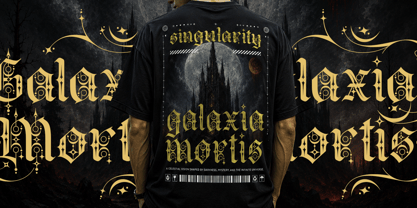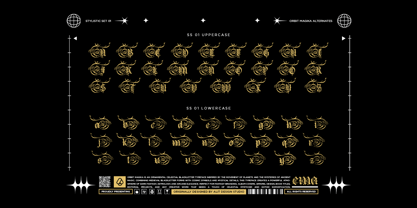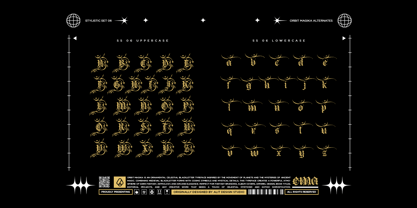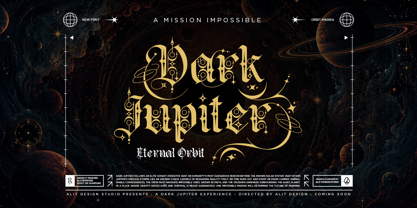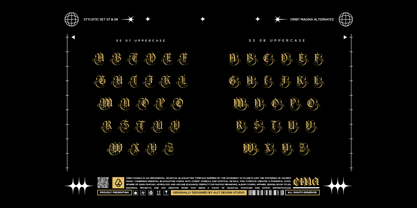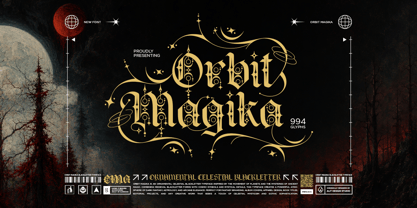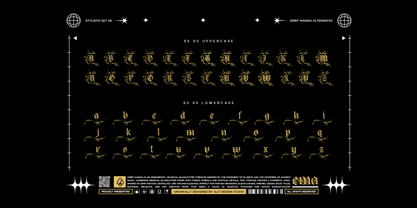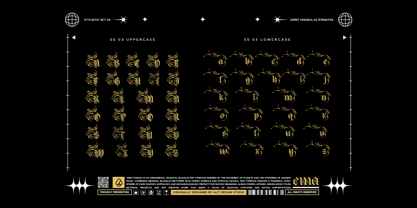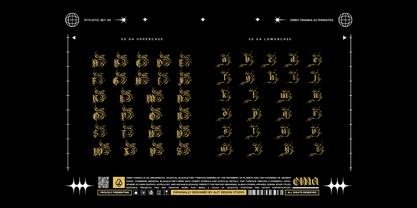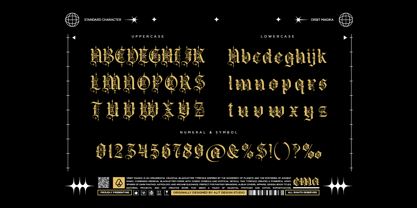
Orbit Magika
Orbit Magika: An Ornamental Celestial Blackletter
Step into a realm of arcane elegance with Orbit Magika, a breathtaking ornamental blackletter typeface inspired by the cosmic dance of the planets and the hidden mysteries of ancient magic. By seamlessly blending traditional medieval blackletter structures with delicate celestial symbols and mystical details, this typeface creates a powerful atmosphere of dark fantasy and gothic sophistication.
Whether you are designing for the earthly realm or the vast cosmos, Orbit Magika is crafted to elevate your creative projects with a touch of timeless ambition and enduring beauty.
🌌 Perfect For:
• Fantasy & Sci-Fi Branding: Create striking logos and wordmarks for games, movies, and esoteric brands.
• Apparel Design: Ideal for streetwear, band merchandise, and edgy typography-focused clothing.
• Publishing & Editorial: Craft captivating book covers, chapter headers, and magazine layouts.
• Music Industry: Perfect for dark, ambient, or heavy metal album art and promotional posters.
✨ Key Features:
• Massive Character Set: A meticulously crafted library of 995 glyphs for boundless creative freedom.
• Comprehensive Basics: Includes standard uppercase and lowercase letters, alongside numerals and a full set of symbols.
• Extensive Stylistic Alternates: Features an incredible range of stylistic sets (SS01 through SS10) packed with decorative swashes, moons, and stars to customize your typography.
• Custom Ligatures: Smooth, beautifully paired ligatures that give your text a custom, hand-lettered flow.
• Global Reach: Broad multilingual support to ensure your message translates beautifully across different languages.